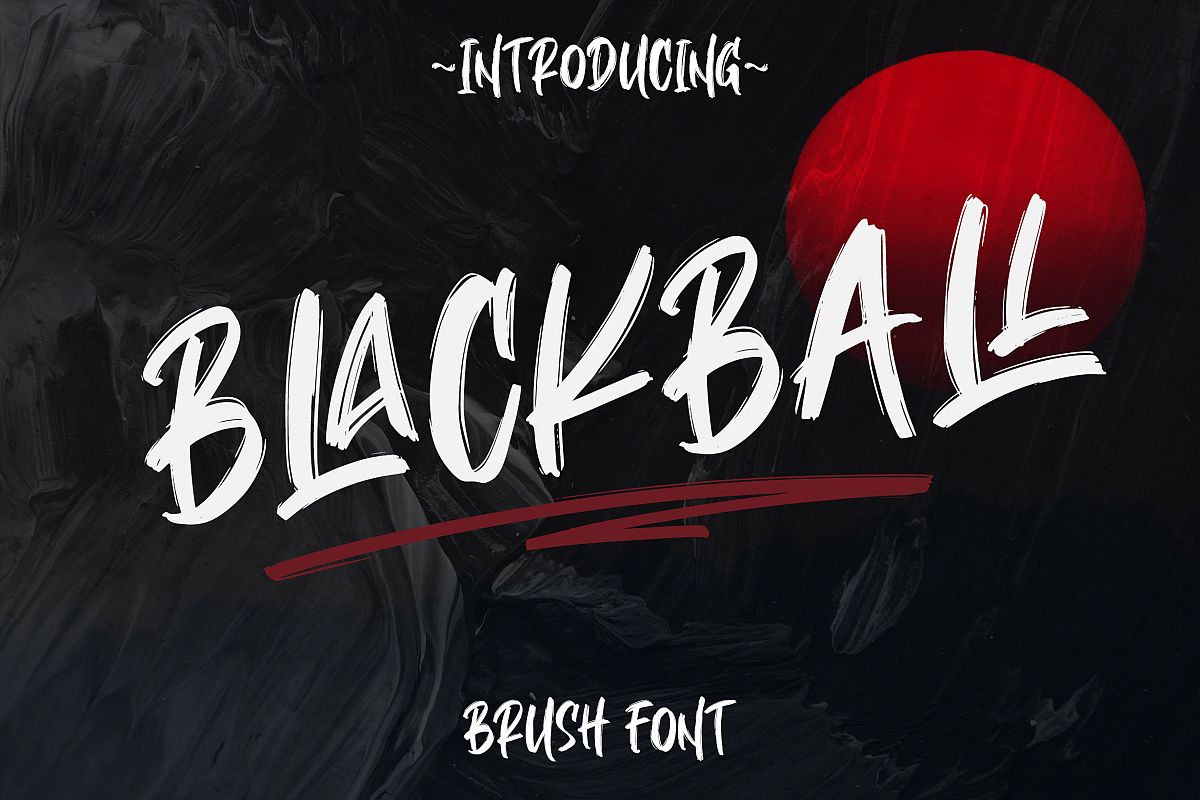
BLACKBALL BRUSH
BLACKBALL BRUSH FONT is Natural Dry Brush Font. This font is perfect for logo, quote, poster, playful lettering, for clothing, or any design projects.
• Stylish handwritten style